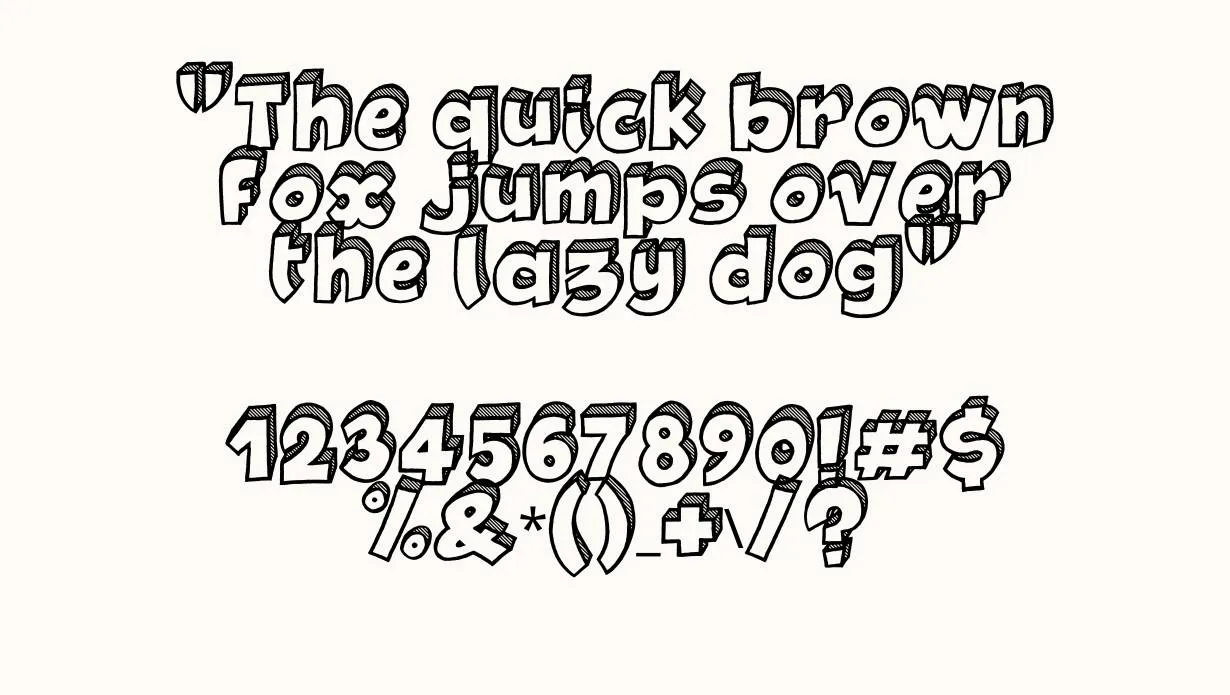
The Jackpot font is like letters that just hit the jackpot. With its bold and playful design, it adds a touch of excitement to your text. This font is perfect for projects that want to capture the thrill of winning.
If you’re designing a casino poster or creating a logo for a lucky brand, the Jackpot font brings a sense of fun and energy to your words, making them as exhilarating as hitting the jackpot on a slot machine.